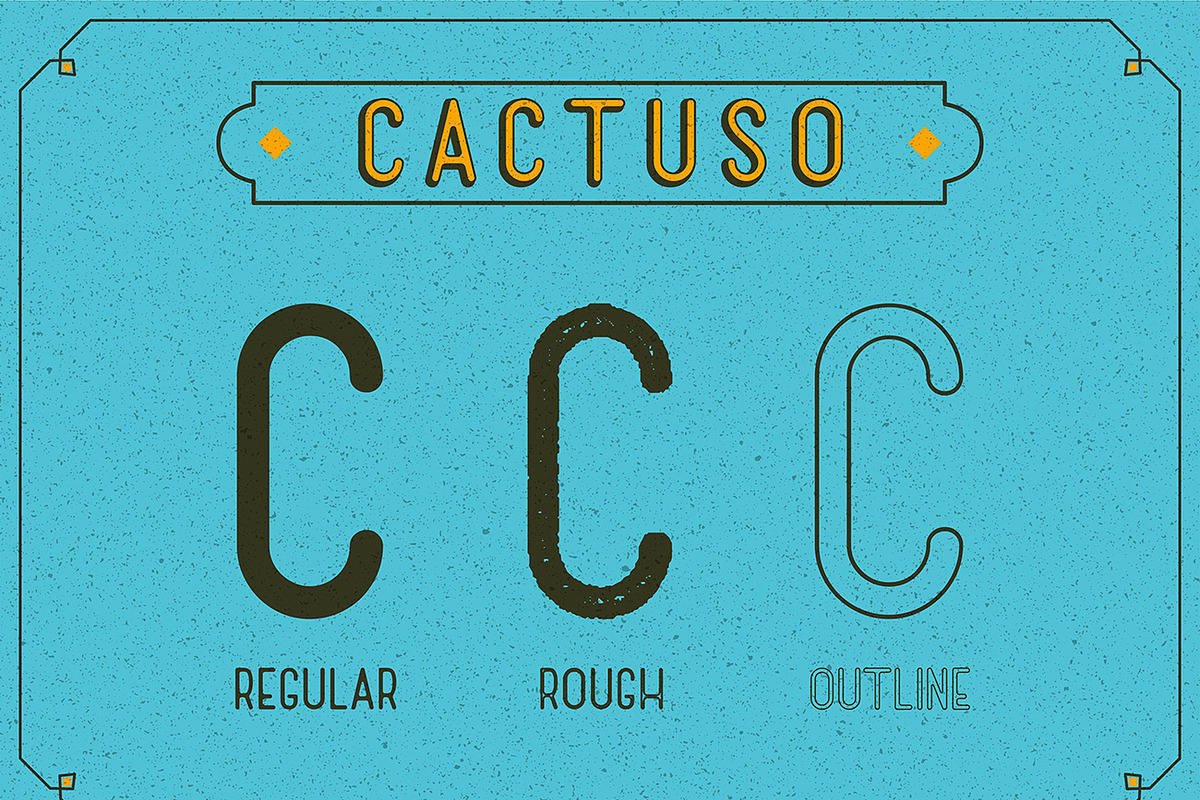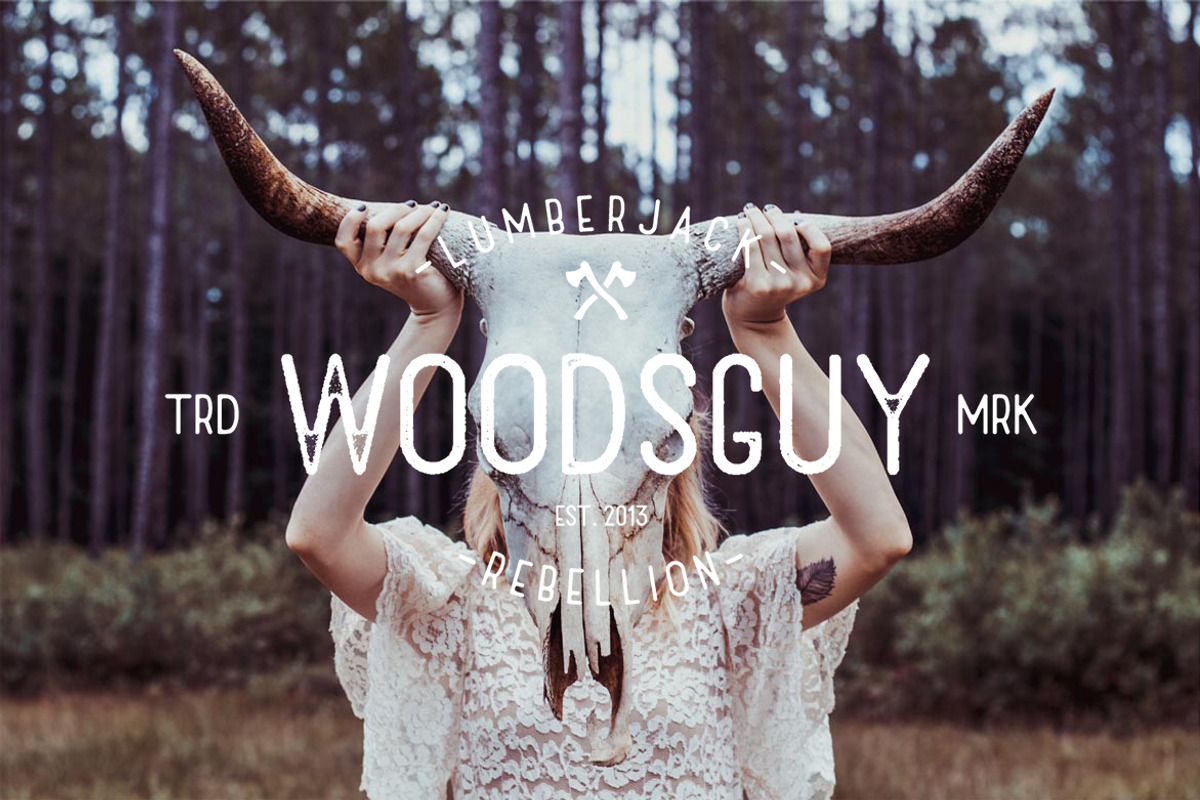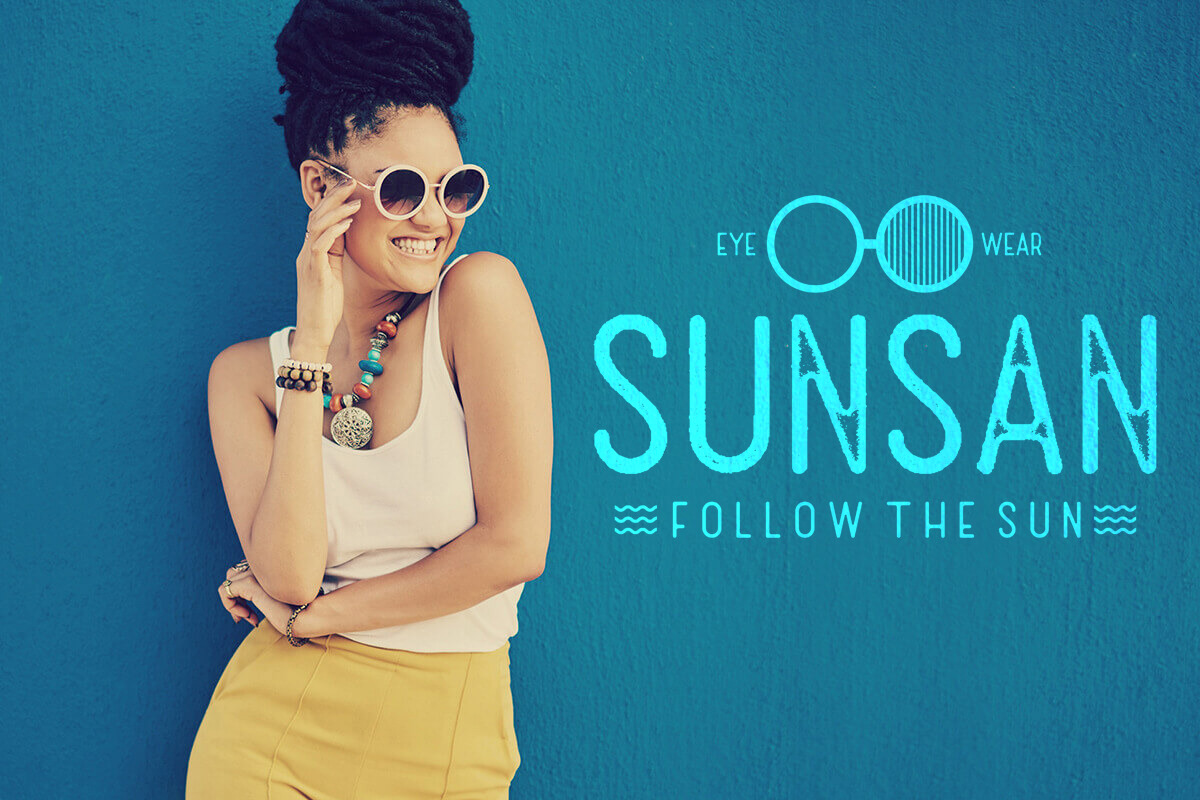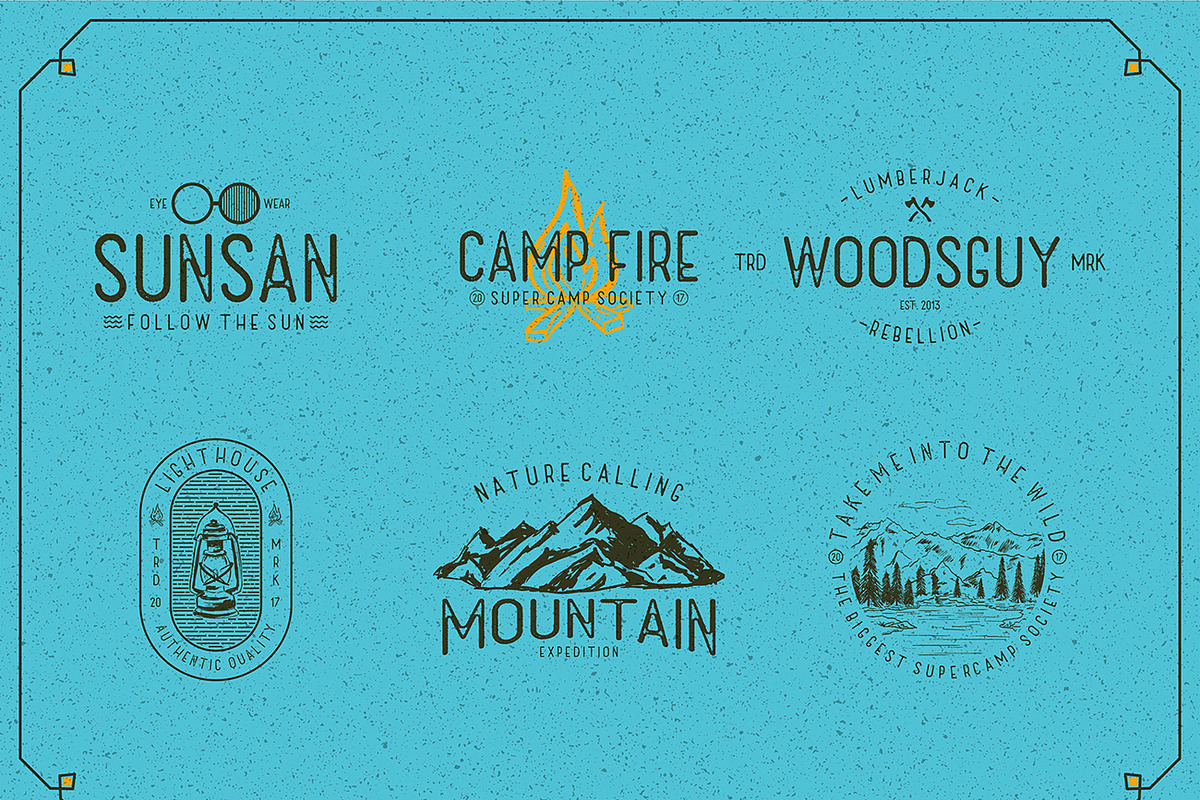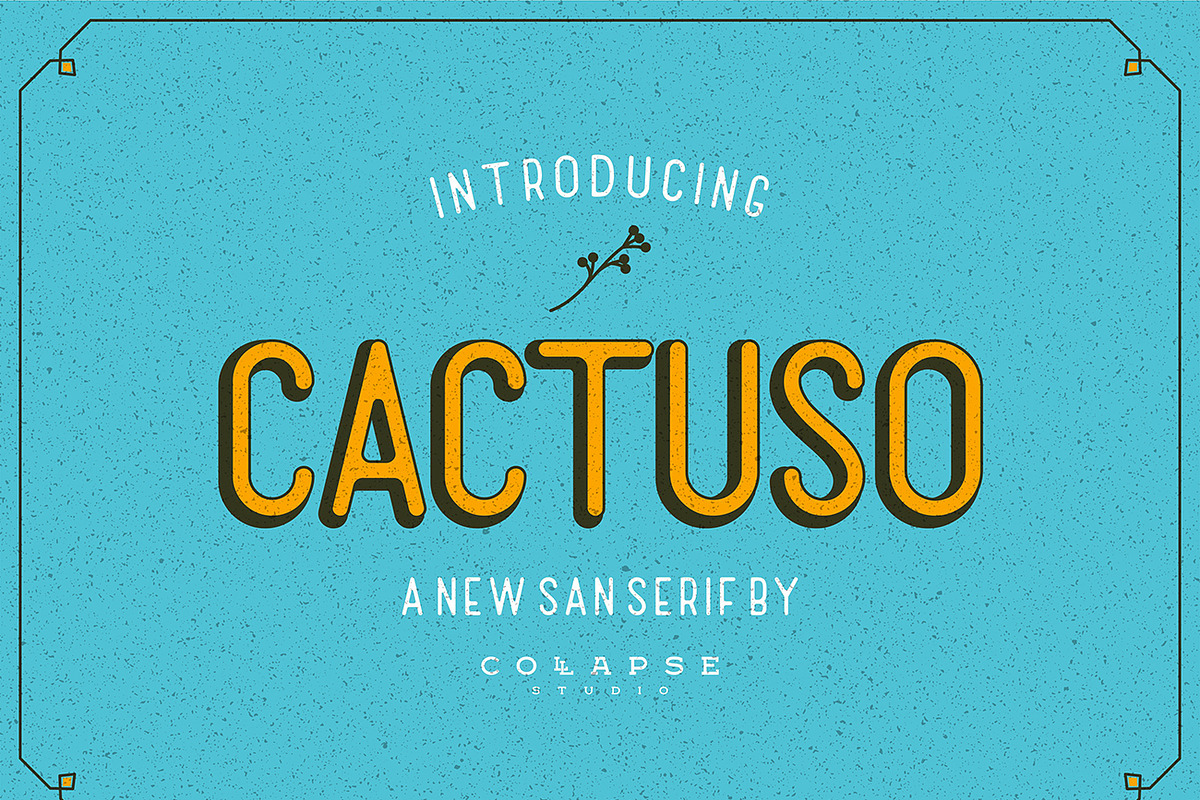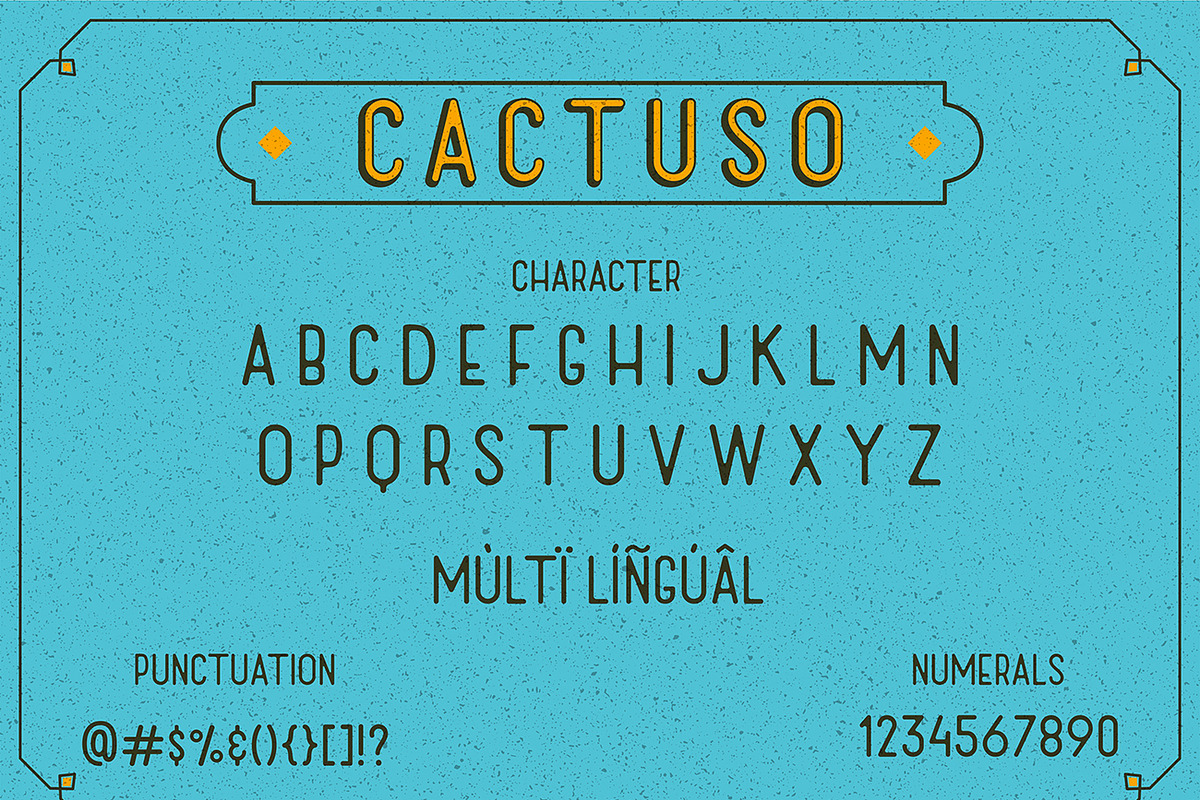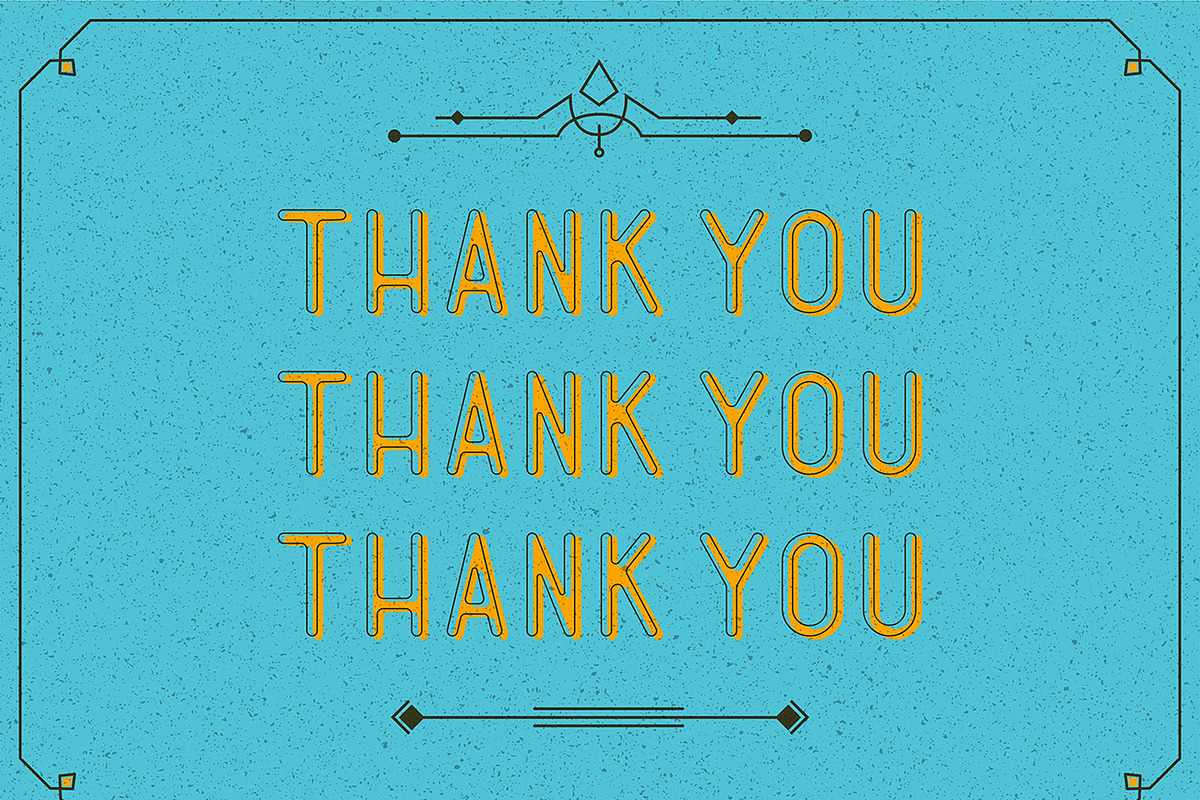
Sans Serif Font - Cactuso
Cactuso is a simple vintage sans serif font, with 3 style font (regular, rough, outline) and multiple language support. Perfect for headlines, logo design, posters, greeting card, letterhead, t-shirt and many more.